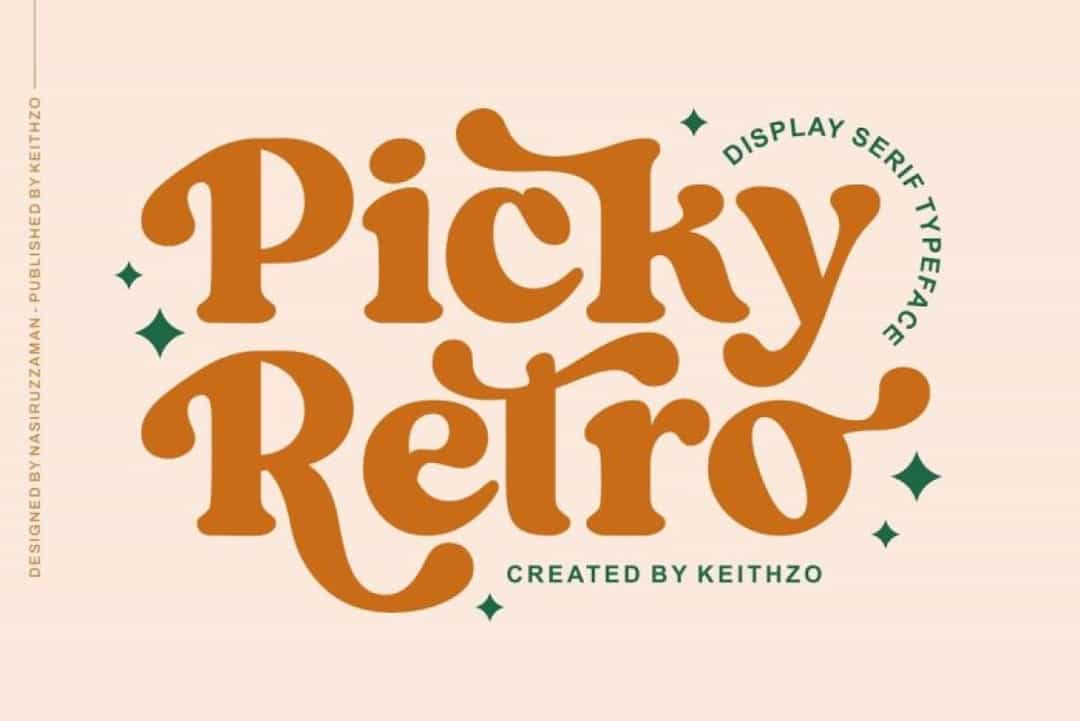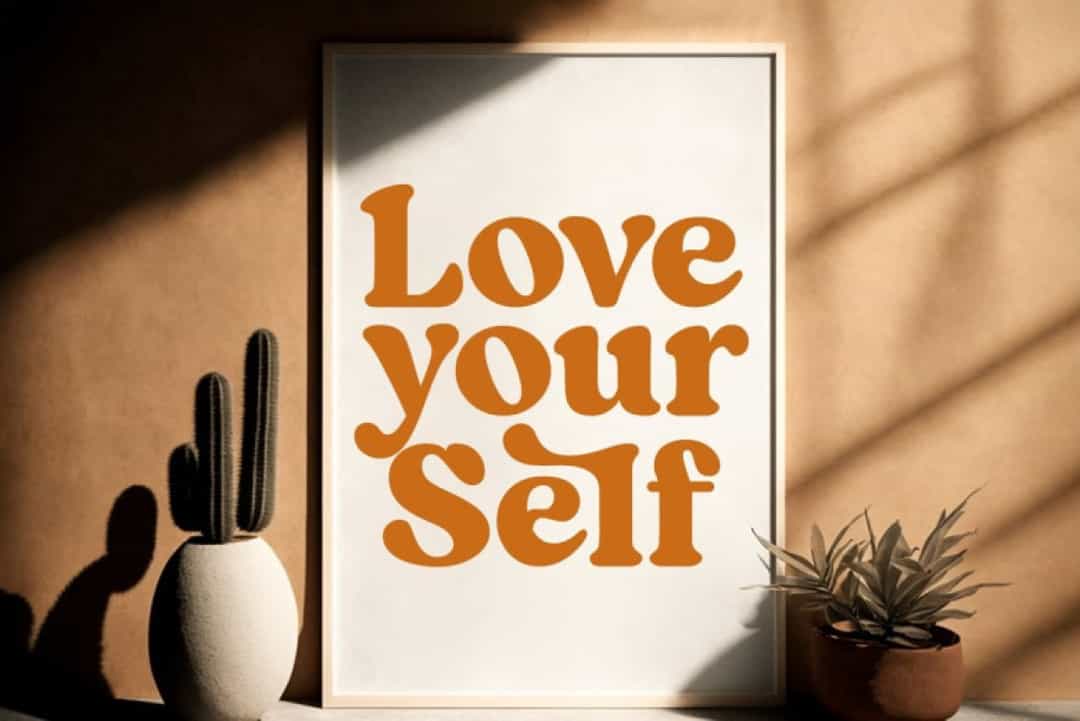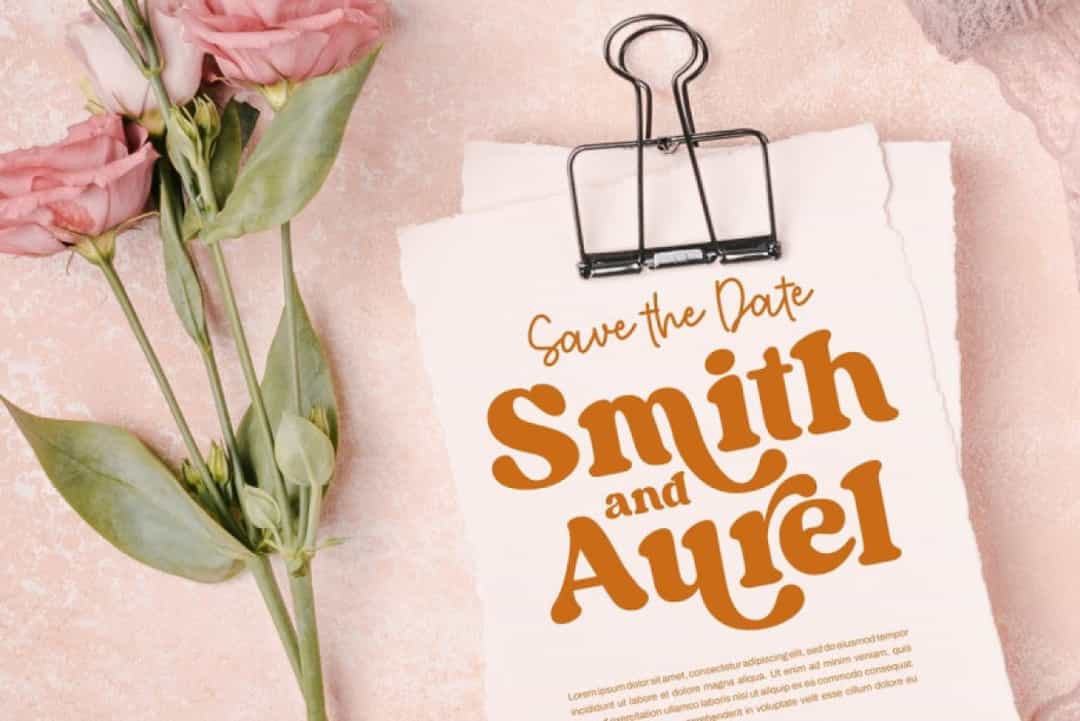
Picky Retro is an impressive and captivating presentation serif typeface that adds old-school charm to your design. Its bold letters evoke feelings of elegance and classic style while adding an element of fun nostalgia; whether you’re creating logos, invitations, or headlines Picky Retro will definitely leave an impactful and noticeable mark!